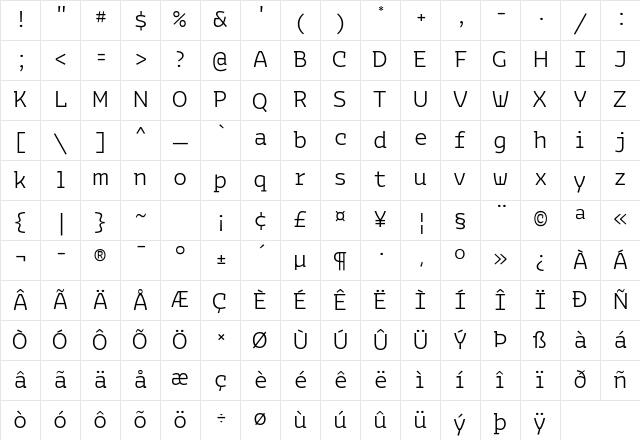
Complete Bakemono Stereo Trial Light Regular glyph index. Displaying only characters natively supported by Bakemono Stereo Trial Light Regular font.
Bakemono Stereo Trial Light uses fixed-width spacing throughout, giving it the structured, systematic character associated with coding environments and technical documentation. Its slender proportions lend an understated elegance to any composition.